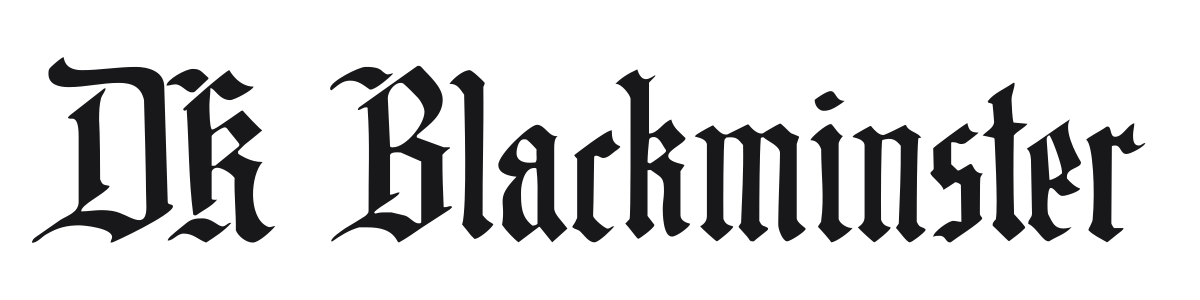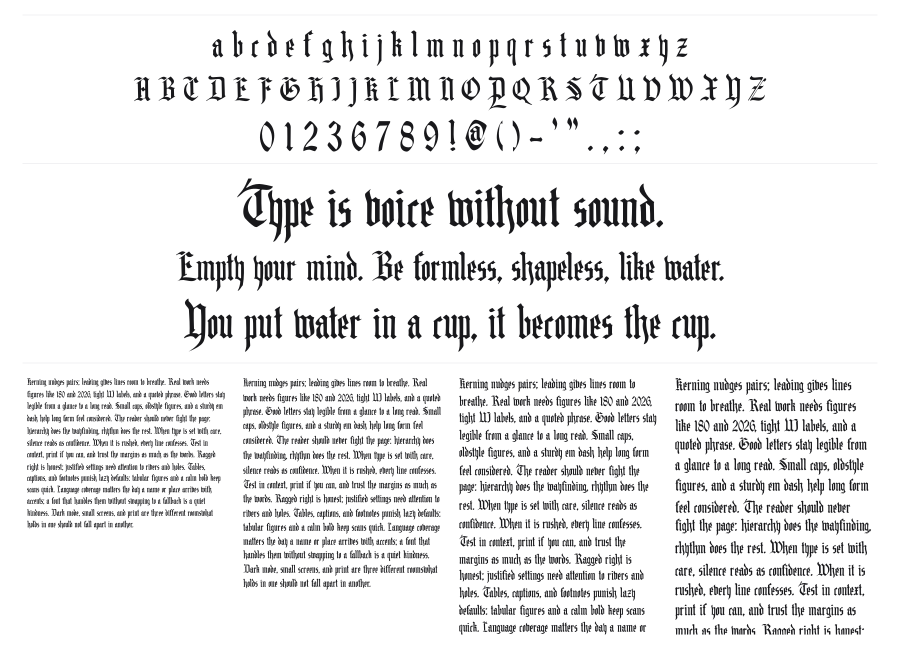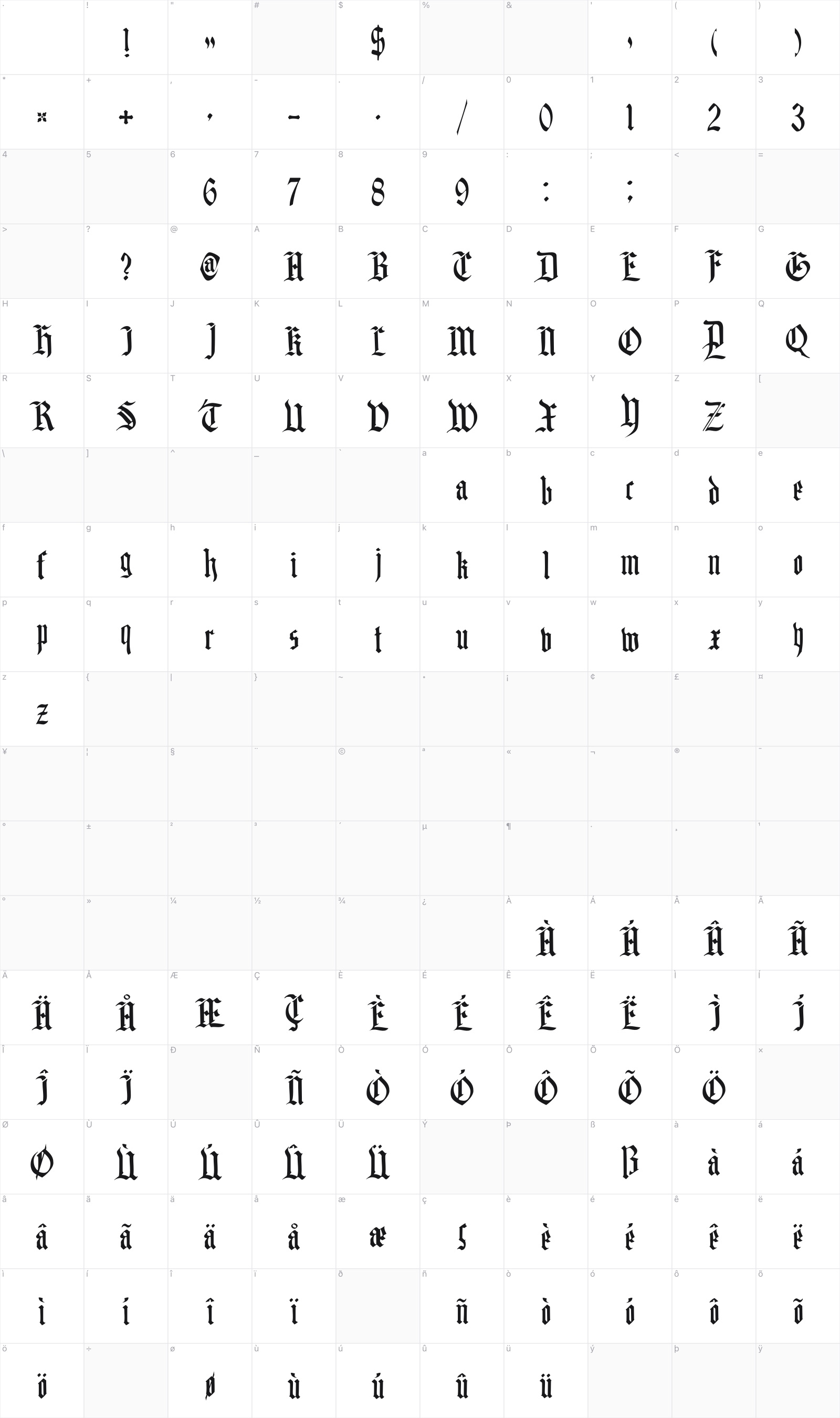
DK Blackminster
DK Blackminster is a heavy textura blackletter rooted in medieval manuscript tradition. Dense angular strokes, diamond-tipped terminals, and tightly compressed proportions give it a commanding, high-contrast presence that reads as both historical and metal-era cool. Strong at large display sizes for logos, album art, editorial headlines, and gothic branding.